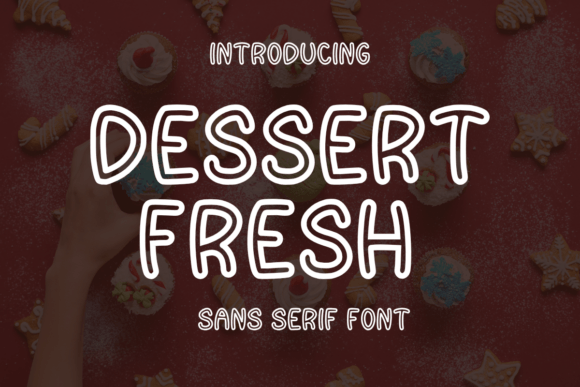
Dessert Fresh Font: The Ultimate Choice for Creative Projects
The world of typography is vast and exciting, with numerous font styles to choose from, each with its unique characteristics and uses. One such font that has gained popularity among designers and crafters is the Dessert Fresh Font. This fun sans serif font is perfect for a wide range of creative projects, from memos and journals to planners, interior KDPs, cards, invitations, and scrapbooks. In this article, we’ll explore the features and benefits of the Dessert Fresh Font and why it’s an excellent choice for your next project.
What is Dessert Fresh Font?
Dessert Fresh Font is a modern sans serif font designed to add a touch of fun and playfulness to your projects. Its clean and simple lines make it highly legible, while its friendly appearance gives it a unique charm. This font is perfect for designers, crafters, and anyone looking to add a personal touch to their work.
Features of Dessert Fresh Font
The Dessert Fresh Font comes with several features that make it an excellent choice for various creative projects. Some of its key features include:
- Fun and playful design: The font’s playful design makes it perfect for projects that require a touch of whimsy and fun.
- Sans serif: The font’s sans serif design makes it clean and modern, perfect for a wide range of projects.
- Highly legible: The font’s simple lines and clear design make it highly legible, even at small sizes.
- Versatile: The font is suitable for a wide range of projects, from memos and journals to planners, interior KDPs, cards, invitations, and scrapbooks.
Uses of Dessert Fresh Font
The Dessert Fresh Font is suitable for a wide range of creative projects, including:
- Memos and journals: The font’s playful design makes it perfect for memos and journals that require a personal touch.
- Planners and interior KDPs: The font’s clean design and high legibility make it suitable for planners and interior KDPs.
- Cards and invitations: The font’s friendly appearance makes it perfect for cards and invitations, adding a touch of warmth and personality to your designs.
- Scrapbooks: The font’s playful design and versatility make it suitable for scrapbooks, allowing you to create unique and personalized designs.
Special Occasions and Themes
The Dessert Fresh Font is also suitable for various special occasions and themes, including:
- Cardinals: The font’s playful design makes it perfect for cardinals and other bird-themed projects.
- Christmas: The font’s friendly appearance makes it suitable for Christmas-themed projects, such as holiday cards and decorations.
- Halloween: The font’s playful design makes it perfect for Halloween-themed projects, such as spooky cards and decorations.
- Buddhist: The font’s clean design and simple lines make it suitable for Buddhist-themed projects, such as meditation journals and inspirational quotes.
- Thanksgiving: The font’s friendly appearance makes it perfect for Thanksgiving-themed projects, such as holiday cards and decorations.
- Funky and fall: The font’s playful design makes it suitable for funky and fall-themed projects, such as autumn decorations and quirky designs.
- Laser and mini calendars: The font’s clean design and high legibility make it perfect for laser and mini calendars.
- Laser cut and tumbler wrap: The font’s simple lines and clear design make it suitable for laser cut and tumbler wrap projects.
- Seamless patterns: The font’s playful design makes it perfect for seamless patterns, such as backgrounds and textures.
- Basketball and zodiac: The font’s friendly appearance makes it suitable for sports-themed projects, such as basketball and zodiac-themed designs.
- Mockups and t-shirts: The font’s clean design and high legibility make it perfect for mockups and t-shirt designs.
- Quotes and tarot: The font’s playful design makes it suitable for quotes and tarot-themed projects, such as inspirational quotes and mystical designs.
Benefits of Using Dessert Fresh Font
The Dessert Fresh Font offers several benefits, including:
- Unique and personalized designs: The font’s playful design and friendly appearance make it perfect for creating unique and personalized designs.
- High legibility: The font’s simple lines and clear design make it highly legible, even at small sizes.
- Versatility: The font is suitable for a wide range of projects, from memos and journals to planners, interior KDPs, cards, invitations, and scrapbooks.
- Easy to use: The font is easy to install and use, making it perfect for designers and crafters of all levels.
In conclusion, the Dessert Fresh Font is a fun and playful sans serif font perfect for a wide range of creative projects. Its clean design, high legibility, and friendly appearance make it suitable for memos, journals, planners, interior KDPs, cards, invitations, scrapbooks, and many other creative ideas. Whether you’re a designer, crafter, or simply looking to add a personal touch to your work, the Dessert Fresh Font is an excellent choice.